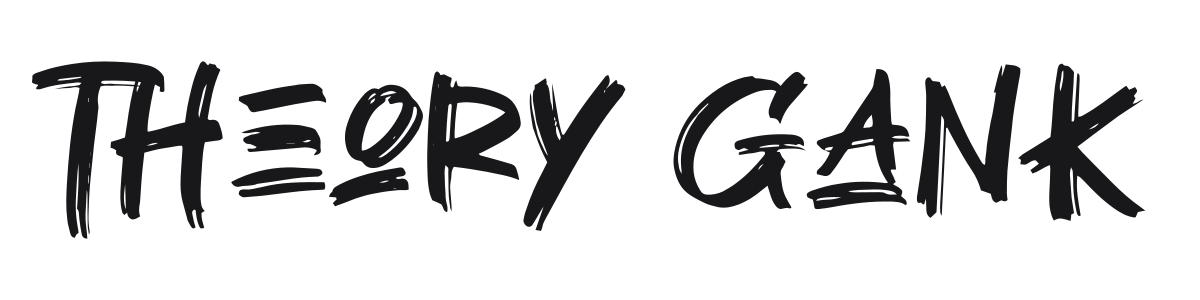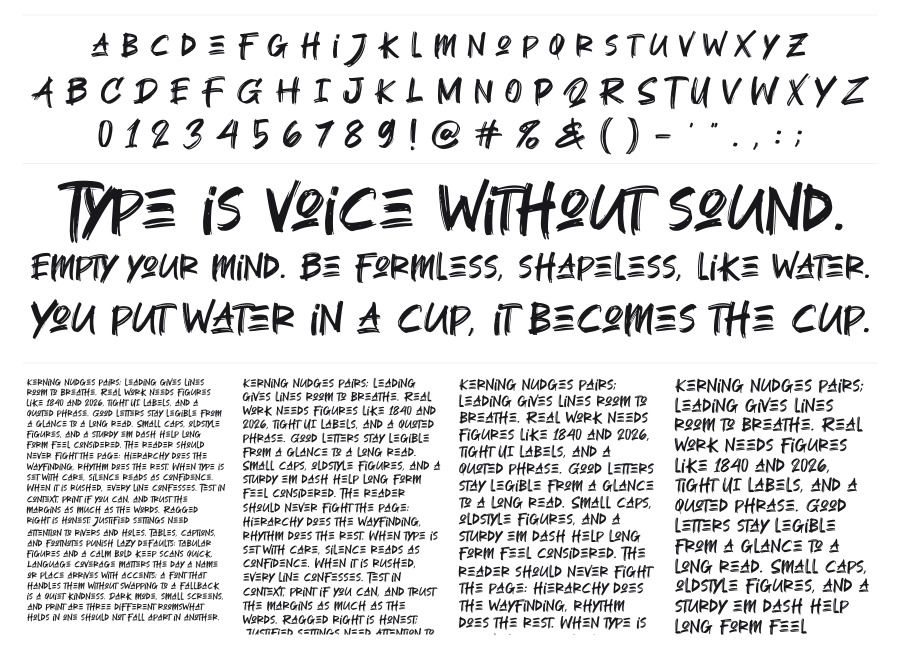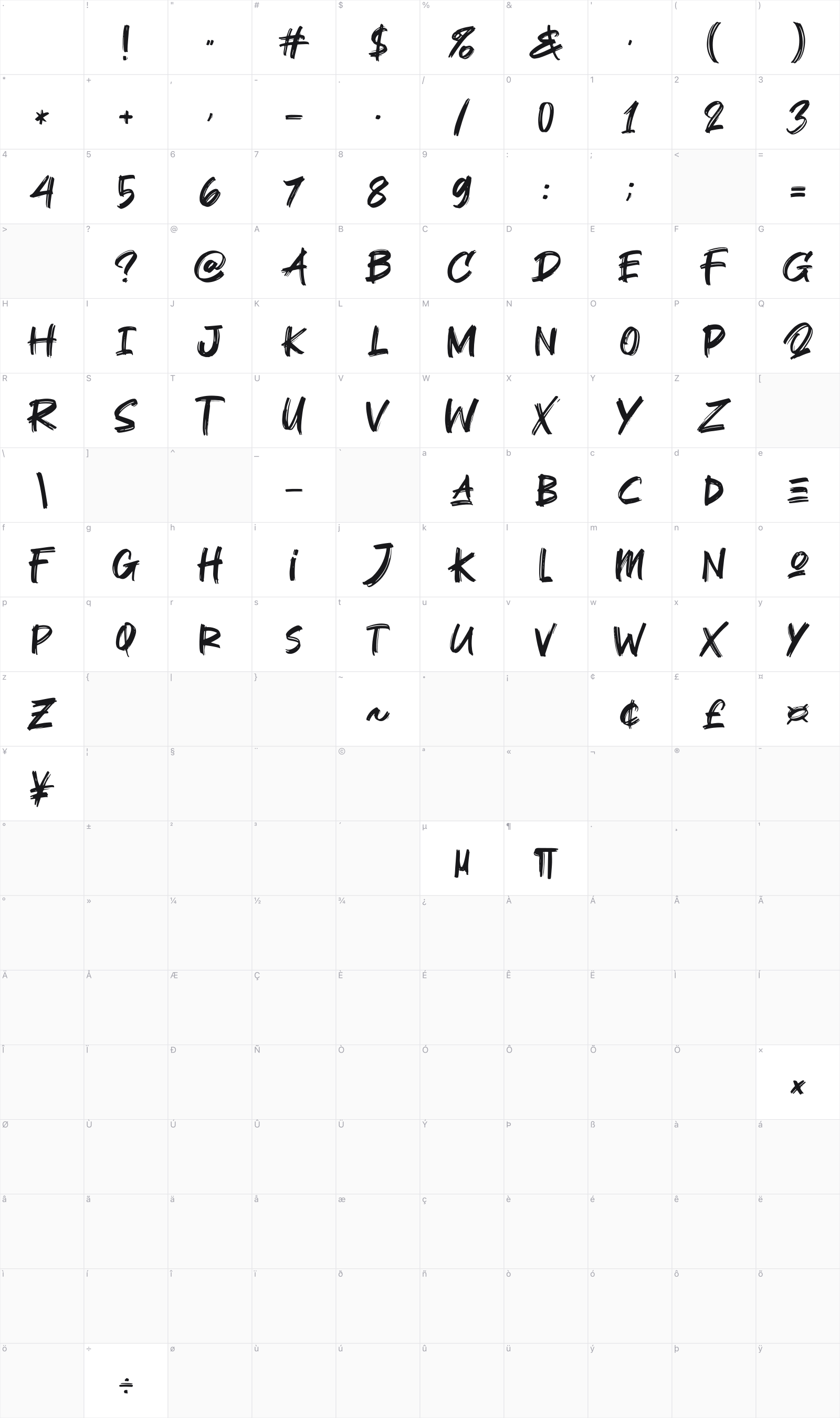
Theory Gank
Theory Gank is a bold, rough brush script with heavy ink texture and raw, gestural energy. The bristle drag and frayed stroke edges give it an authentic hand-painted quality, somewhere between street art and aggressive lettering. It reads with force at large sizes and suits projects that need attitude.